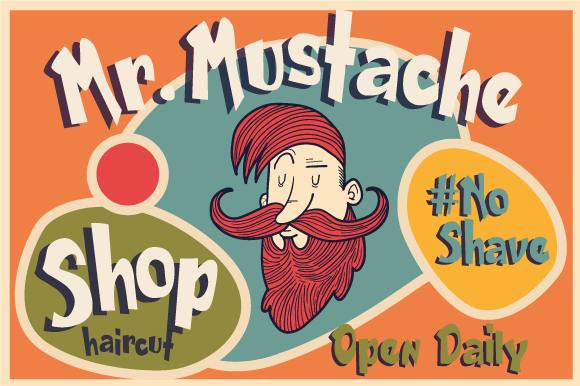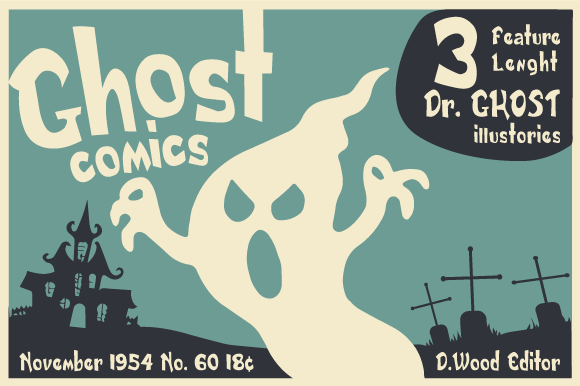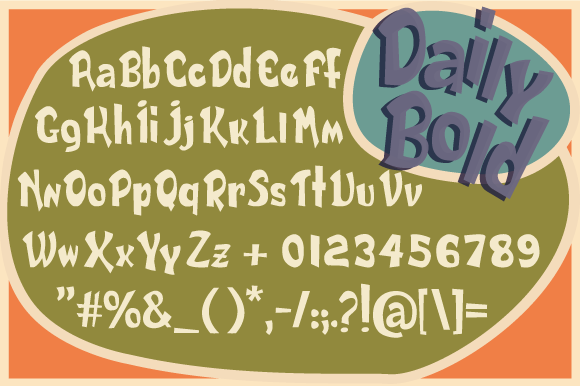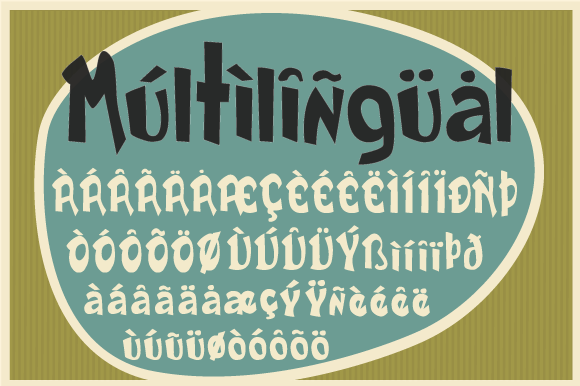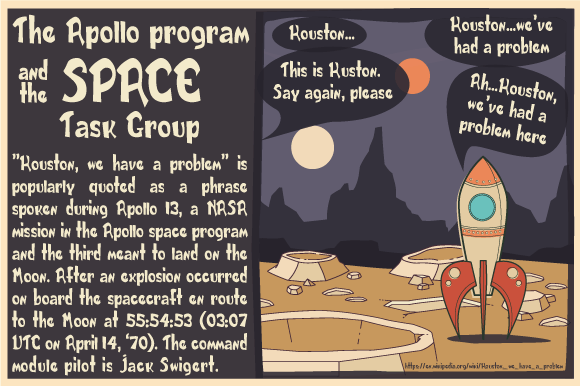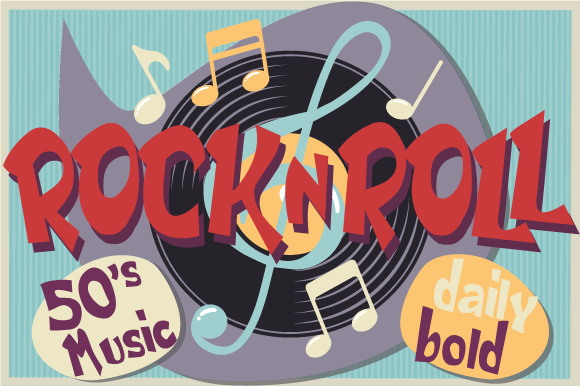
Introduction to Daily Bold Font Font
Fonts play a crucial role in design, and the Daily Bold Font font is a typeface that brings both character and versatility to any project. Whether you’re working on a branding project, a website, or a print design, the Daily Bold Font font offers a unique style that can elevate your work.
“Daily Bold” is a fancy font, inspired by the retro sans and comic fonts.
With a deeply evocative design, it takes us back in time to the ’50’s-’60’s This period is still a great source of inspiration for the design, advertising and art in general.
Key Features of Daily Bold Font Font
Why Choose Daily Bold Font Font?
The Daily Bold Font font is more than just a typeface – it’s a design tool that helps you communicate your message with style and clarity. Its unique character set and versatile design make it suitable for a wide range of applications, from elegant invitations to bold headlines.
With its carefully crafted letterforms and balanced proportions, the Daily Bold Font font ensures readability and visual appeal across all mediums.
What makes Daily Bold Font font special?
The Daily Bold Font font stands out with its unique design, exceptional readability, and versatility across various design applications.